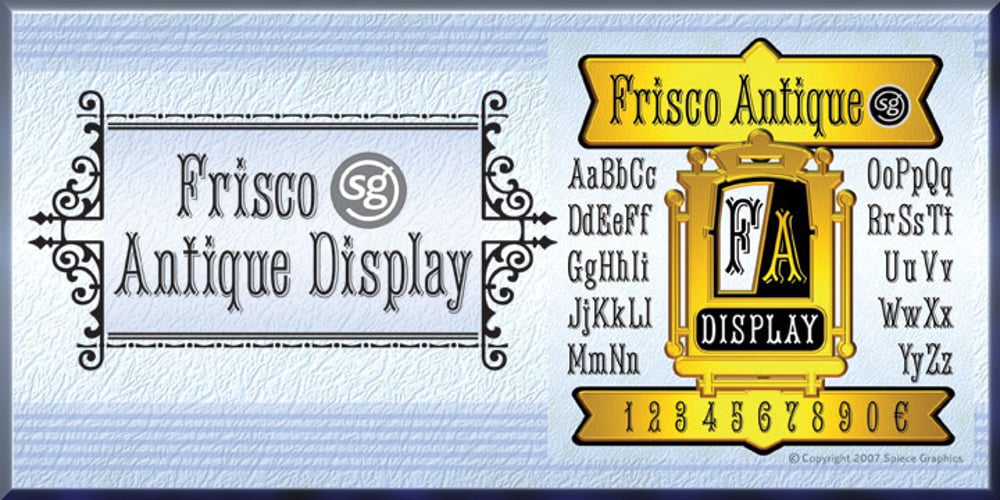
Frisco Antique Display SG Font Family was designed by Jim Spiece and published by Spiece Graphics. Frisco Antique Display SG contains 1 styles and family package options. Here is a decorative condensed antique design that is sure to fit a variety of contemporary situations. The Bruce Type Foundry (later acquired by V. B. Munson) developed this wonderfully shaded Tuscan in the 1880s – or possibly earlier. It was known back then as Style No. 1050 and carried a pronounced three-dimensional look with a thin hairline at the bottom and right of each stroke. It is best to use Frisco Antique in large display sizes because it is easy to lose these delicate hairlines. A lowercase and several alternate characters have been provided for your convenience. Frisco Antique Display is also available in the OpenType Std format. Some new characters have been added to this OpenType version. Advanced features currently work in Adobe Creative Suite InDesign, Creative Suite Illustrator, and Quark XPress. Check for OpenType advanced feature support in other applications as it gradually becomes available with upgrades.